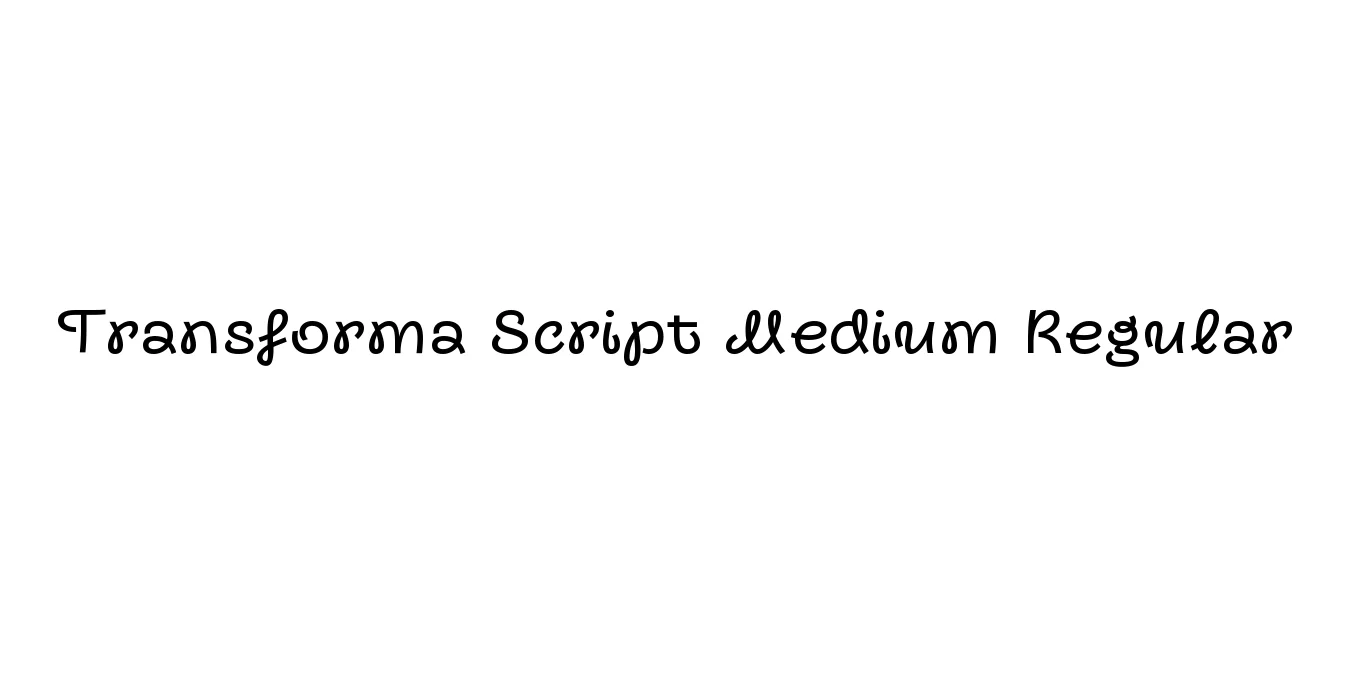
Transforma Script Medium Regular
Designed by Janko Jovanovic
| Font Name | Transforma Script Medium |
| Designer | Janko Jovanovic |
Transforma Script Medium Regular is a sophisticated component of the expansive Transforma type system, meticulously crafted to offer a seamless blend of fluid calligraphy and modern structural precision. Developed with a focus on versatility, this script weight provides a balanced medium stroke that ensures legibility while maintaining a high degree of elegance and artistic flair, making it stand out in both print and digital environments.
The typeface is characterized by its smooth connections and natural flow, making it an excellent choice for designers looking to add a human, organic touch to digital projects. It serves as a bridge between traditional handwriting and contemporary digital design, offering a timeless aesthetic that adapts well to various creative contexts, from high-end luxury branding and fashion layouts to personalized stationery and editorial headlines.
Transforma Script Medium Regular Best Uses
Perfect for creating modern and stylish brand identities with a personal touch.
Adds an elegant and sophisticated feel to formal event materials.
Ideal for creating eye-catching quotes and engaging visual content.
Enhances the aesthetic appeal of premium product designs and boutique labels.